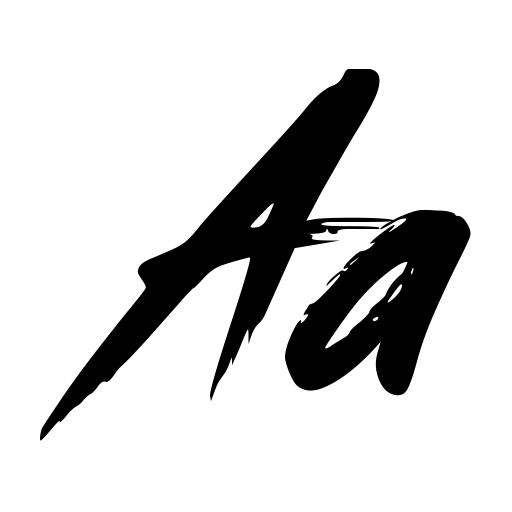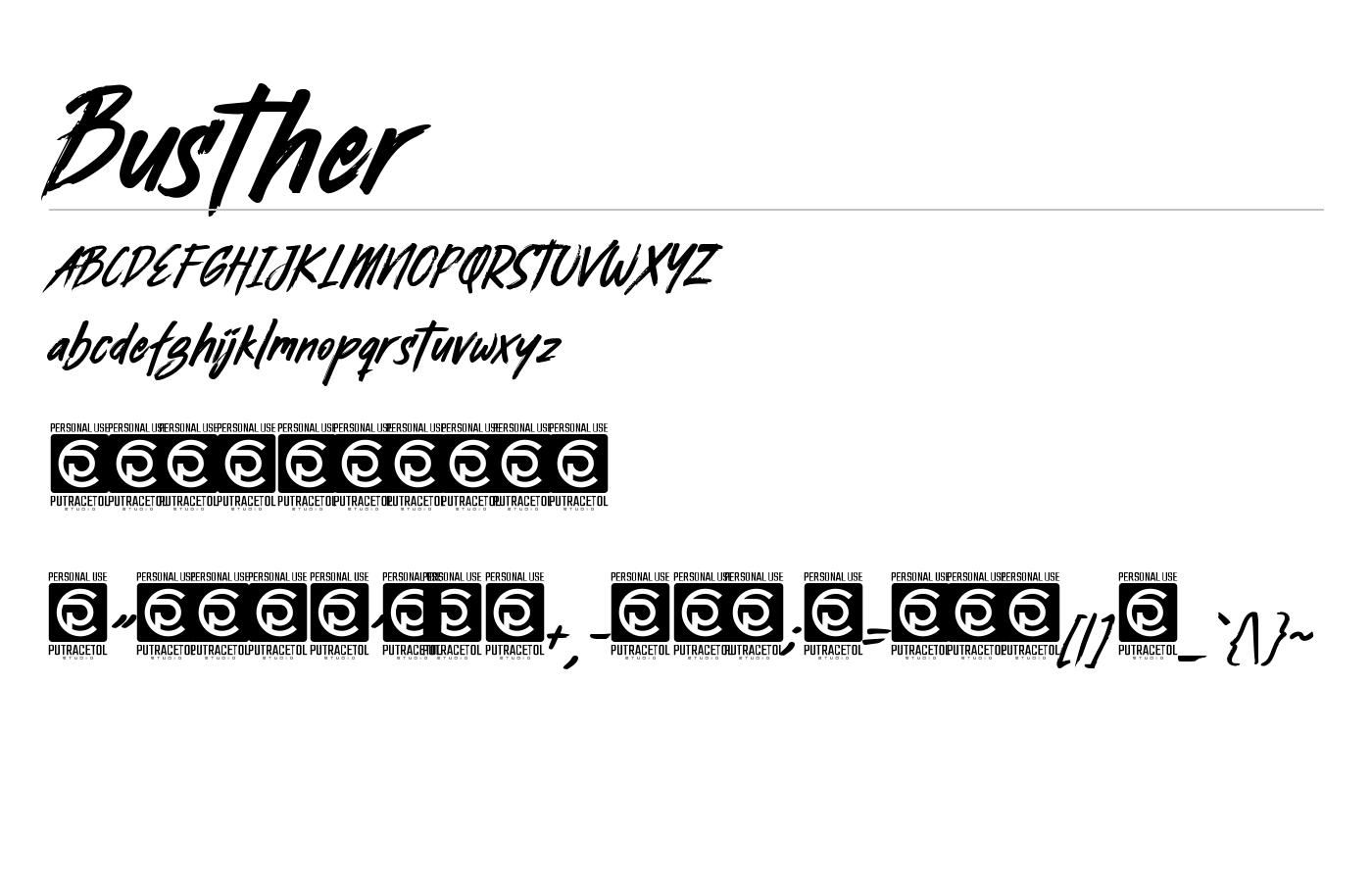
Busther is a dynamic brush script font with a bold, expressive style characterized by textured, lively strokes that evoke a hand-painted feel. Its energetic letterforms and irregular edges make it perfect for creative, casual branding, posters, or headlines where a sense of movement and personality is desired. This font brings a modern, artistic vibe to designs seeking a bold and authentic handwritten look.
Busther Font
About Busther Font
| Font family | Busther Font |